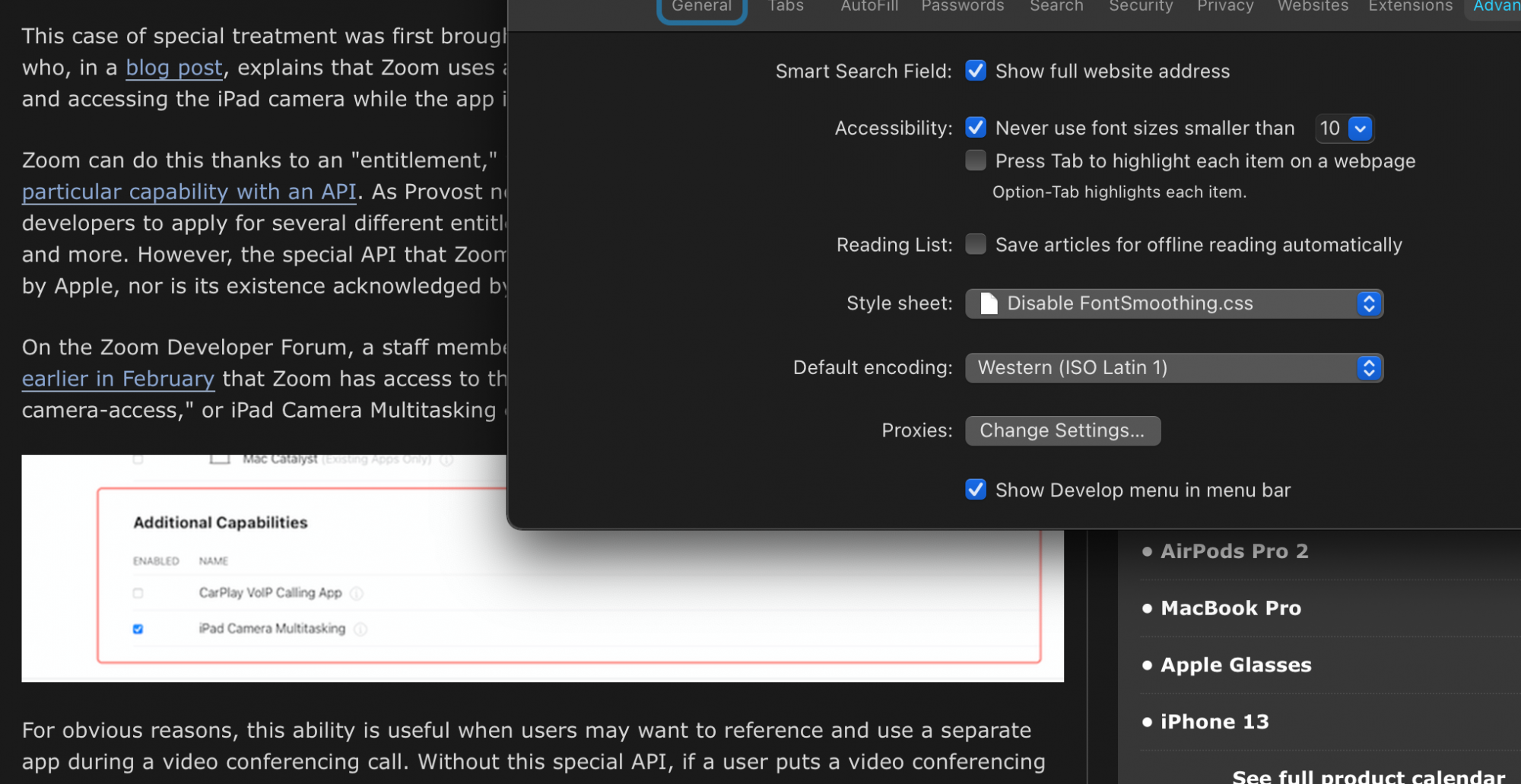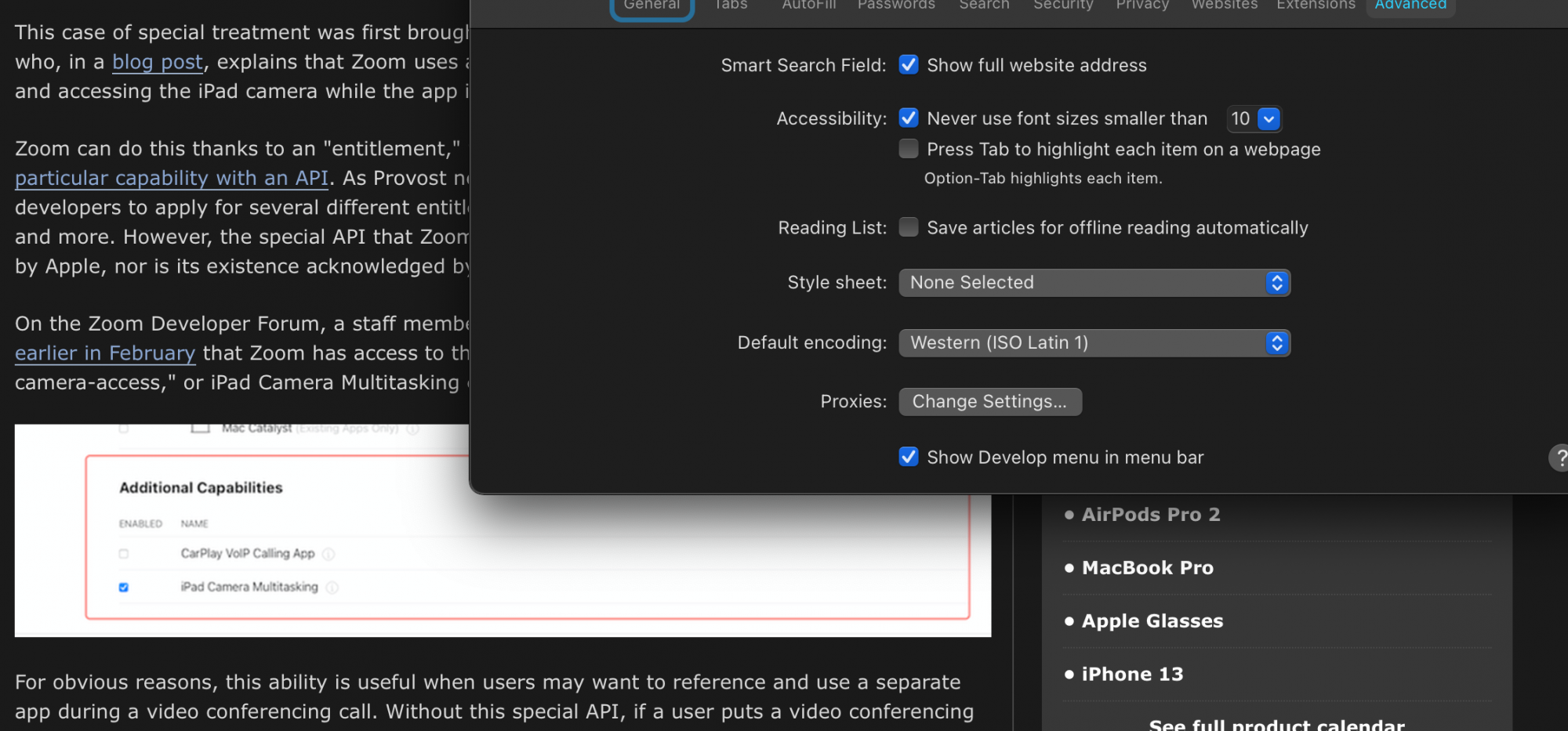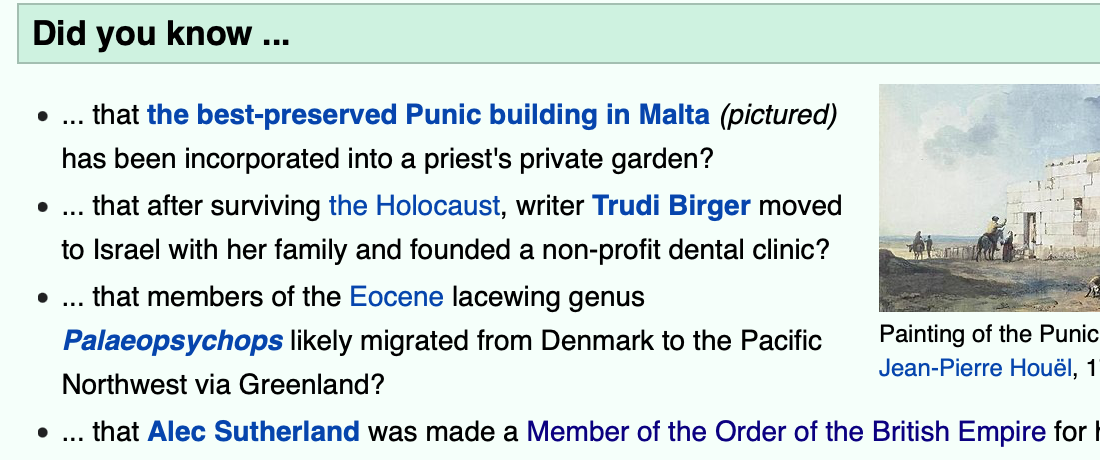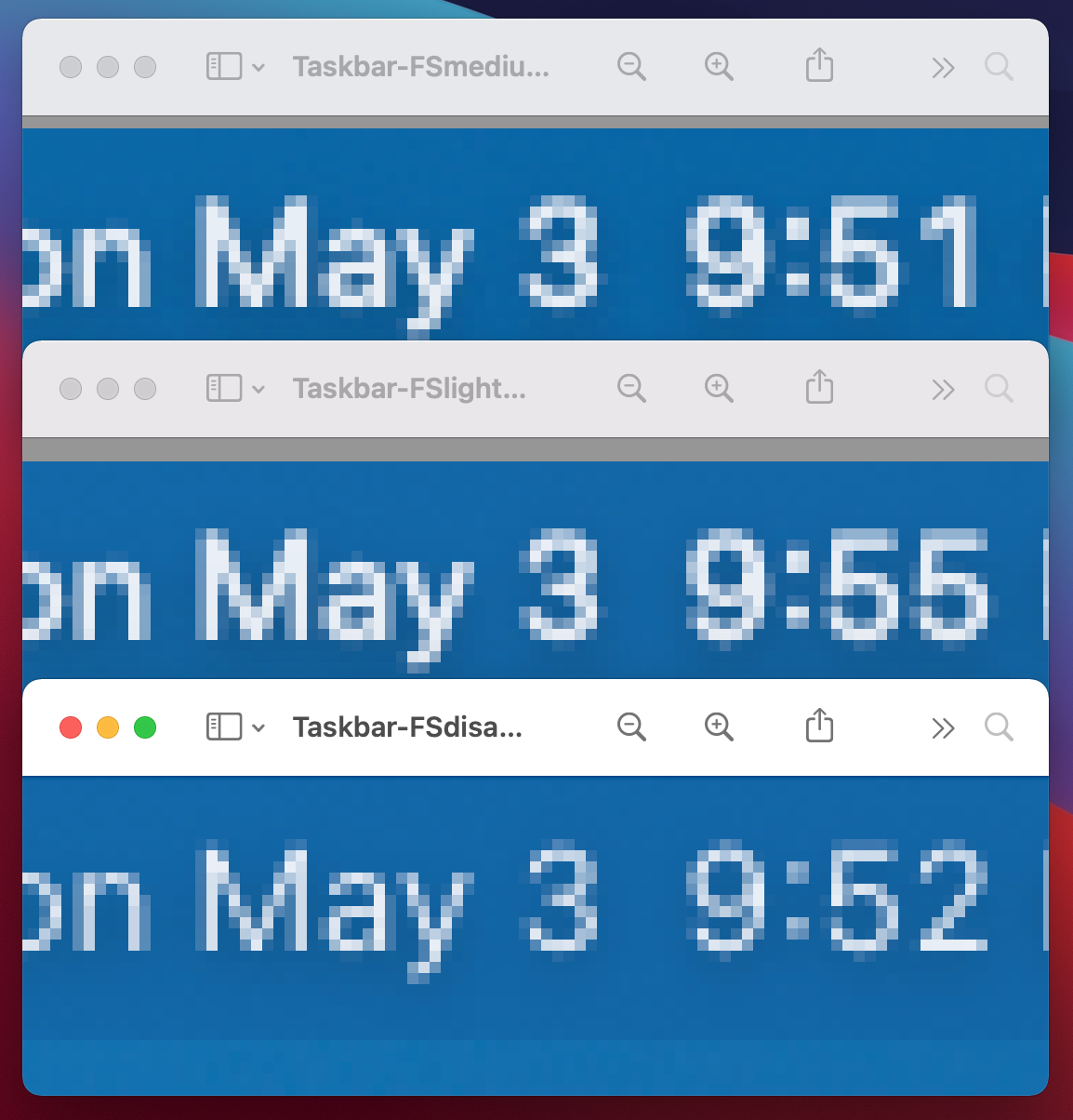
This is a great article explaining font smoothing and why its horrible
Hopefully it’s a bug that gets fixed, but I won’t hold my breath.
Custom CSS for Safari works for me. Create a CSS text file that has the following:
CSS:html { -webkit-font-smoothing: antialiased; }
Go to Safari > Preferences > Advanced > Style Sheet, and select this CSS file.
Or use Chrome browser, which is not affected by the smoothing problem. Looks like it uses its own rendering engine.
With Apple Mail, you can go into Preferences > Fonts & Colors. Change "Message font" from Helvetica to Helvetica Light (or something with a "Light" variant) to offset the bolding effect from WebKit. Though the font smoothing is still on, the lighter font weight makes it more readable.
There is a very ancient thread (http://hints.macworld.com/article.php?story=20040219094626558) that talked about setting a default CSS file for Apple Mail. The information is so old, I didn't try it.
Fonts are much nicer and more readable on my external 4K display when font smoothing is disabled. But my MacBook Pro display looks better with the default setting. I think it has something to do with the scaling and the DPI. Anyway, the values are:
0 - Font smoothing disabled.
1 - Light font smoothing.
2 - Medium (default).
3 - Strong.
Is there any difference between light and medium? They looked similar to me in my brief look. This is the menu bar, going from medium to light to disabled from top to bottom, on my 30" Cinema HD Display connected to my 2017 12" MacBook:Here's a neat, free macOS app that allows you to adjust or disable font smoothing easily, without Terminal commands: https://www.fontsmoothingadjuster.com
I also noticed since installing the Big Sur 11.3 update that Apple have annoyingly forced font smoothing back ON in Safari and Mail, and I can't find a way to switch it off.
I see no difference between 11.3 and 11.3.1. The font emboldening/smoothing looks to be font-specific too; not everything looks different with it enabled.I must admit I am confused now. The 11.3.1 update was a WebKit fix... and has it changed font smoothing? Everything now looks how it used to look with font smoothing disabled, including Mail and various websites that wouldn't obey the Safari CSS fix.
Have you tried this (#70) CSS file? I can see the difference on Wikipedia.I think something changed for me after 11.3.1, fonts looks the same in Safari with or without the CSS file.
Yes, I saw the difference in 11.3, but in 11.3.1, there is no difference with or without the CSS file in Safari.Have you tried this (#70) CSS file? I can see the difference on Wikipedia.
Same here. I think 11.3.1 changed something.Yes, I saw the difference in 11.3, but in 11.3.1, there is no difference with or without the CSS file in Safari.
I believe they either fixed or changed something in 11.3.1, maybe Safari follows the system setting correctly now?
This would not explain why it is enforced on dark text against a bright background as well. Dark mode is much rarer on the web and in Mail you can specifically turn off dark mode for email content (which I do).From what I understand the ‘bolder’ effect that the font smoothing produces results in text that looks ‘better’/is more legible in dark mode (I.e. when text is white against a black/dark background).
In which context are you seeing it? As I said before, the emboldening is font-dependent and also website-dependent. Websites that haveYes, I saw the difference in 11.3, but in 11.3.1, there is no difference with or without the CSS file in Safari.
-webkit-font-smoothing: antialiased; in their CSS style sheets do not result in emboldened text in Safari, assuming the AppleFontSmoothing setting is set to 0.This would not explain why it is enforced on dark text against a bright background as well. Dark mode is much rarer on the web and in Mail you can specifically turn off dark mode for email content (which I do).
On my high-dpi screen, the result just isn’t good. Text was super sharp, the emboldening adds no clarity at all, rather it blurs the overall picture.
In which context are you seeing it? As I said before, the emboldening is font-dependent and also website-dependent. Websites that have-webkit-font-smoothing: antialiased;in their CSS style sheets do not result in emboldened text in Safari, assuming theAppleFontSmoothingsetting is set to0.
Give us an example website or maybe some screenshots to see it. If it is true, it would give some hope that there is a setting for it. Here you have to screenshots from the Wikipedia homepage, one without the CSS override, the other with it.
Yes it definitely is, especially for the internal Retina display and high PPI screens in general. I use a external 24" 2K monitor in 2048x1152 HiDPI and even though it's just 120 PPI the foonts look much better when font smoothing is disabled. The font smoothing in Big Sur is completely useless.So is OFF the best?
Is there any improvement in font smoothing in Monterey for non HiDPI displays?